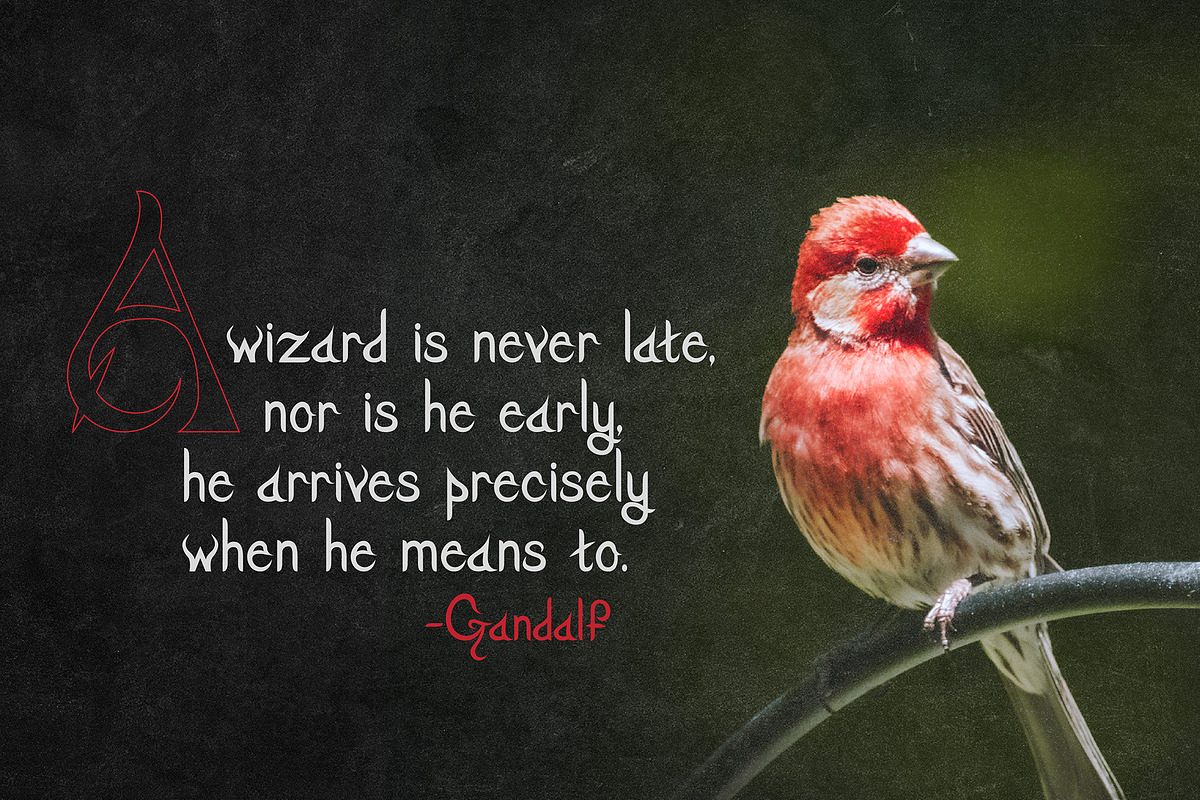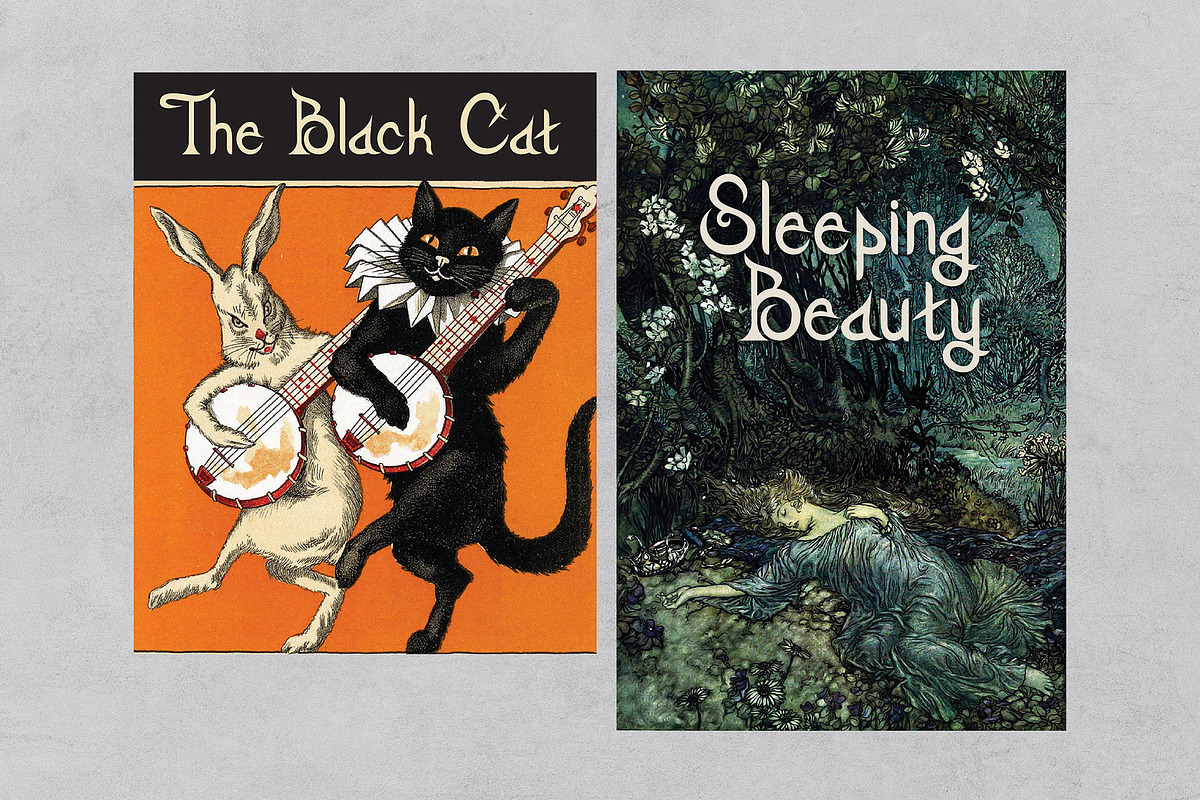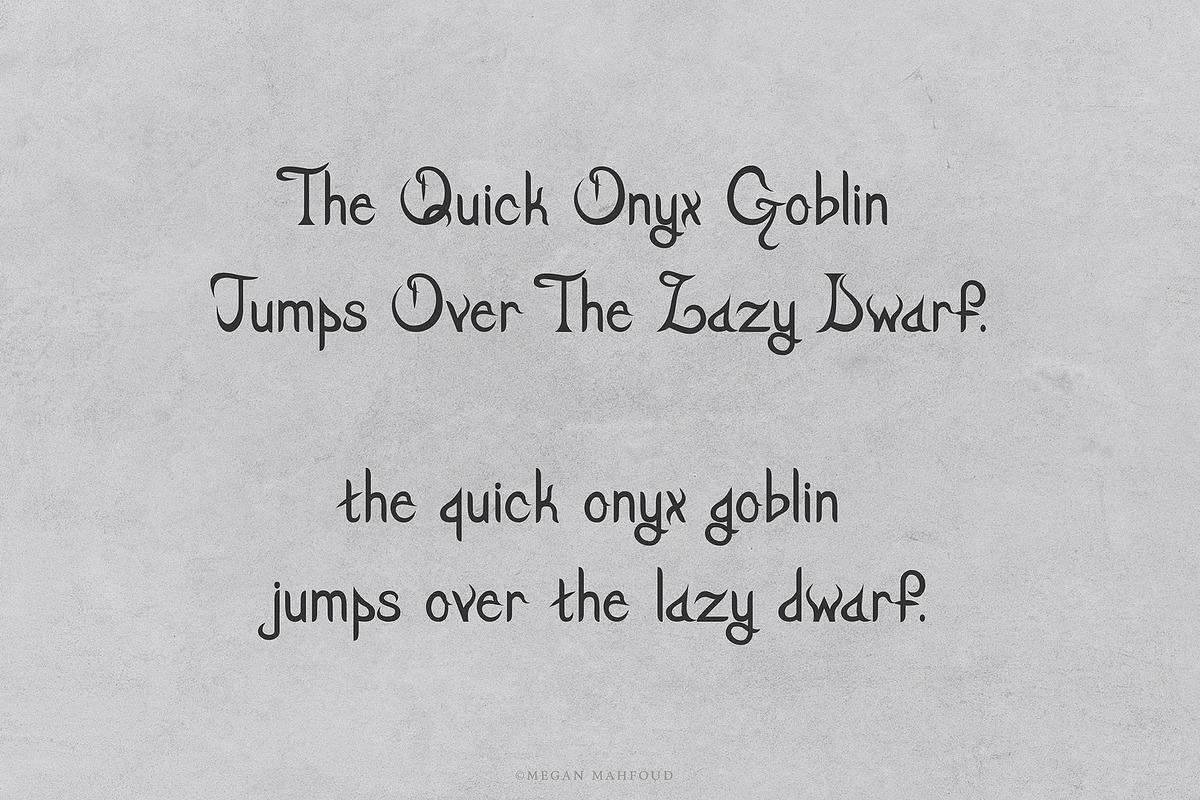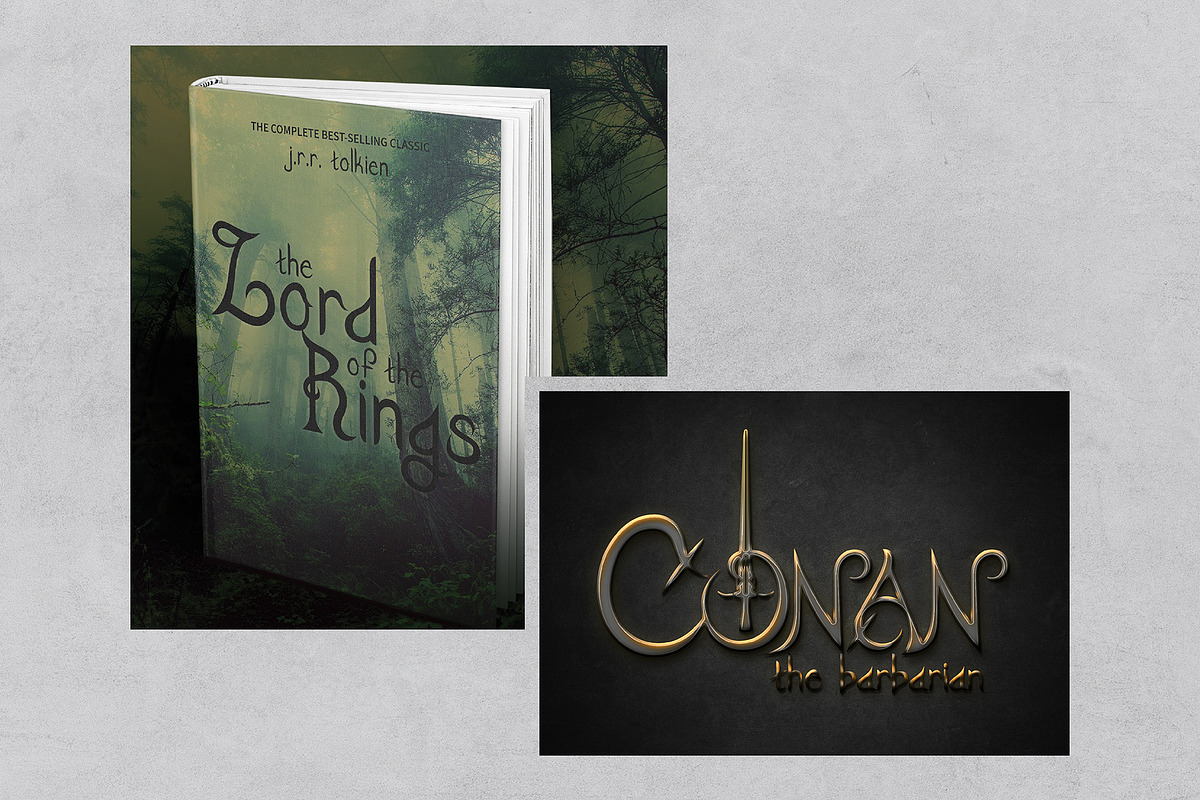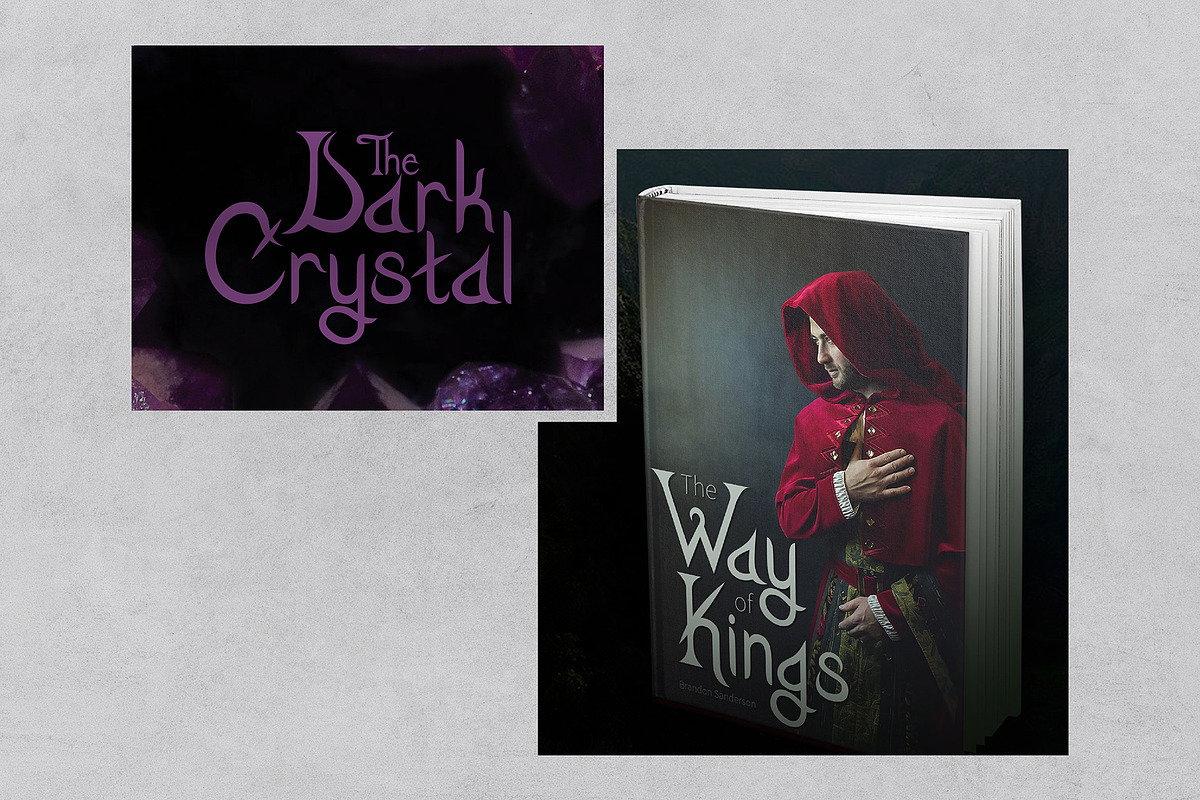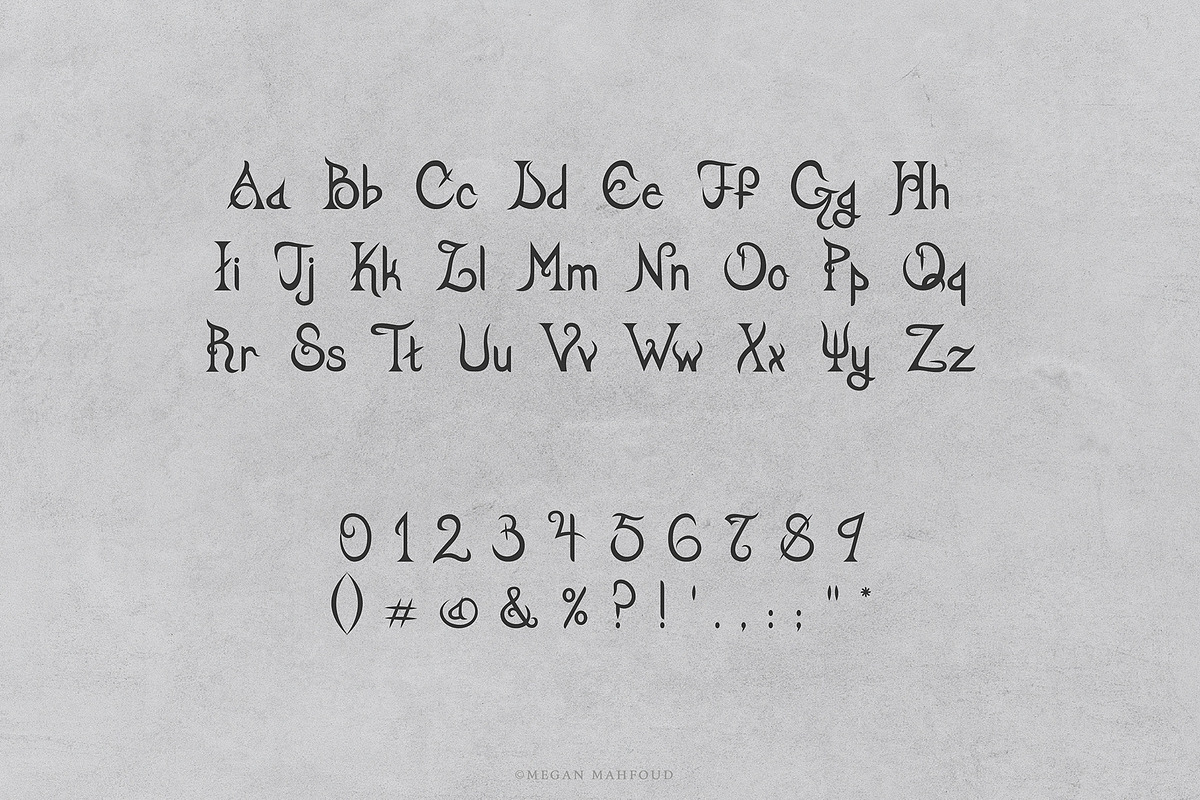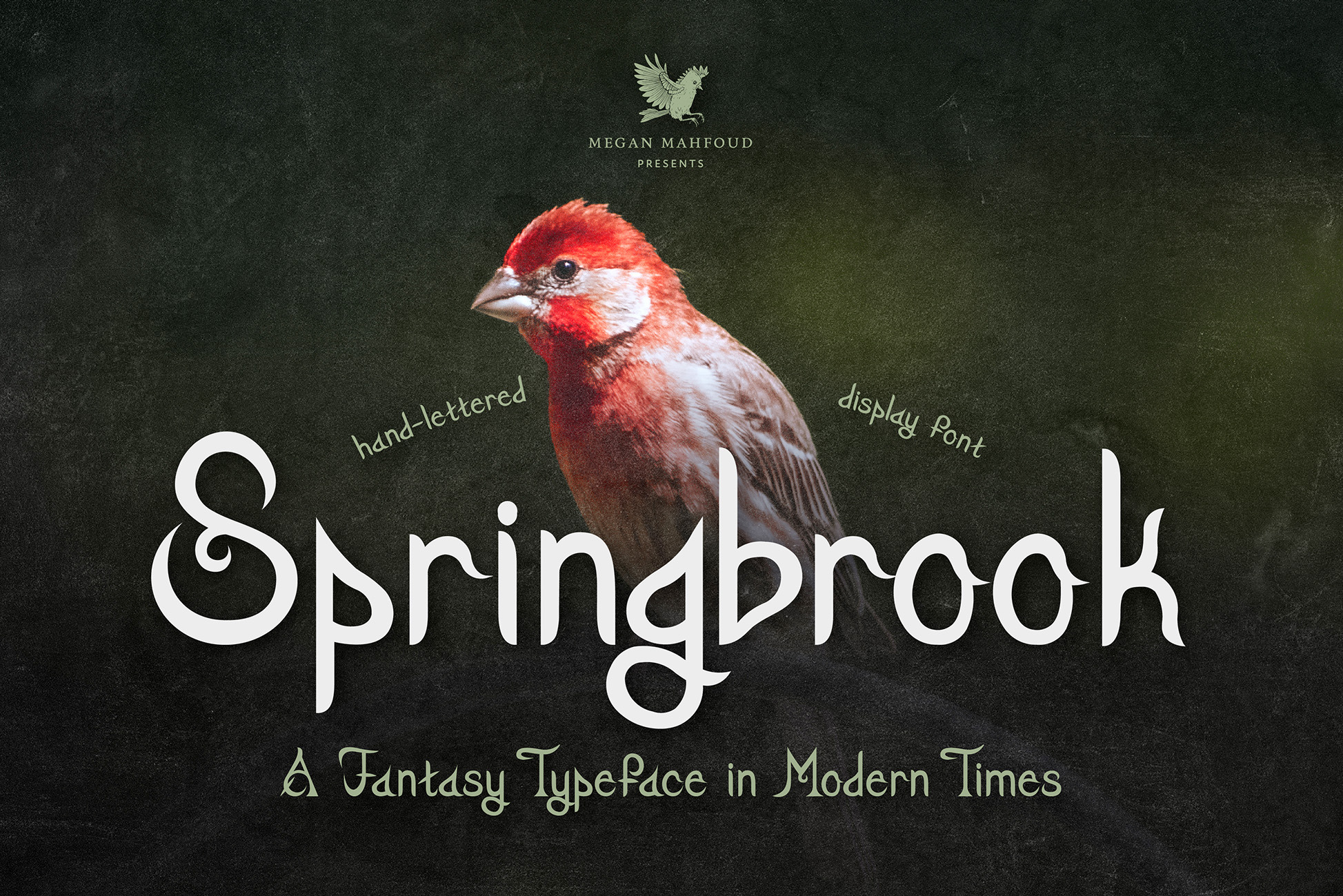
Springbrook - A Fantasy Typeface
Once upon a time, a fantasy typeface was created in modern times! Springbrook consists of decorative nostalgic lettering that brings us back to tales of dragons and mythical creatures. This font was inspired by medieval dark fantasies that you’d see in a Frank Frazetta piece.
This typeface was first drawn with pencil and paper and then digitalized for a cleaner look. This niche display font is not only perfect for logos and book covers, but also branding for comics, gaming platforms, and more!